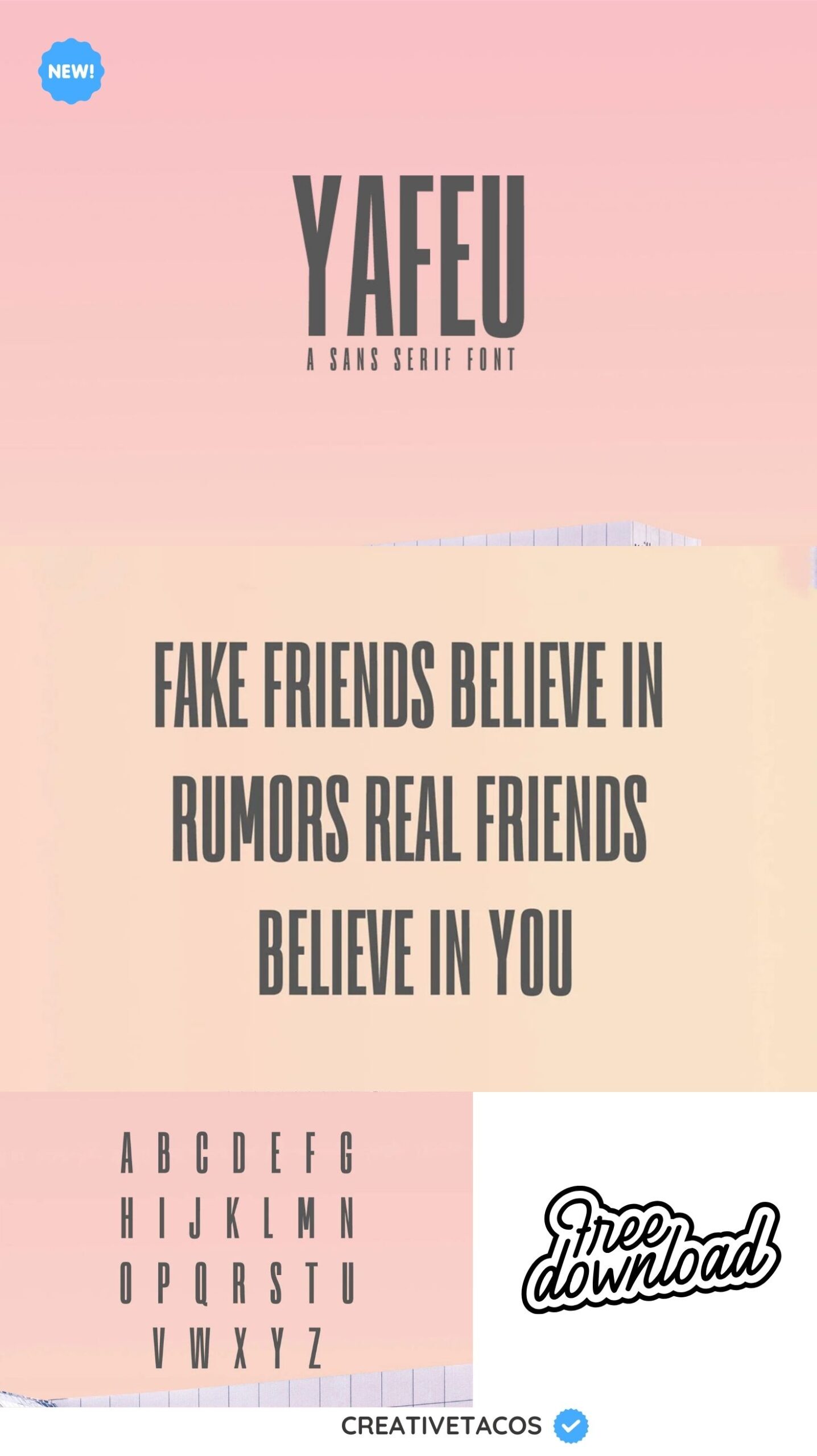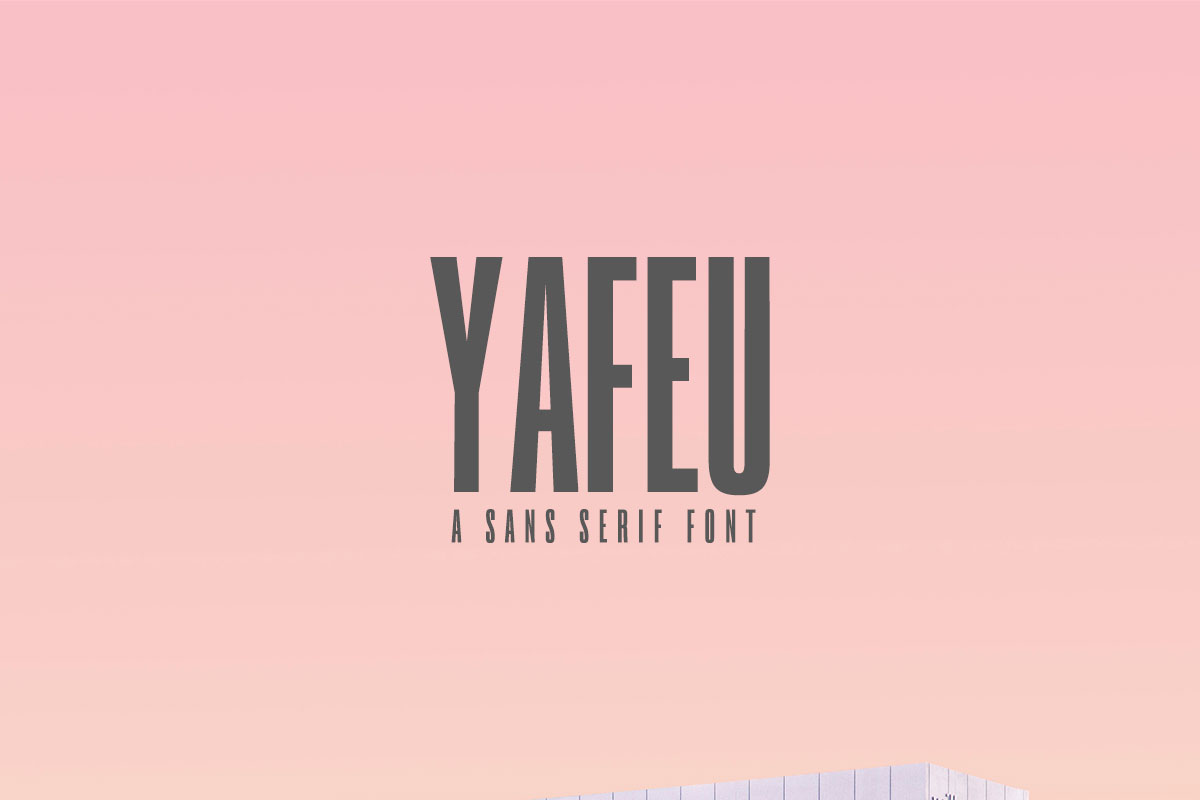
Yafeu Sans Serif Font
Yafeu Sans Serif Font is a luxurious, and fashionable sans serif font that looks stunning in every context. It contains uppercase and numbers glyphs only.
It is perfect for headlines, logotypes, signage, advertising, magazine, logos, invitations, texts, posters, notices, titles, name card, web layouts, headers, branding, weddings, social media, product design, stationery, and other any business related.